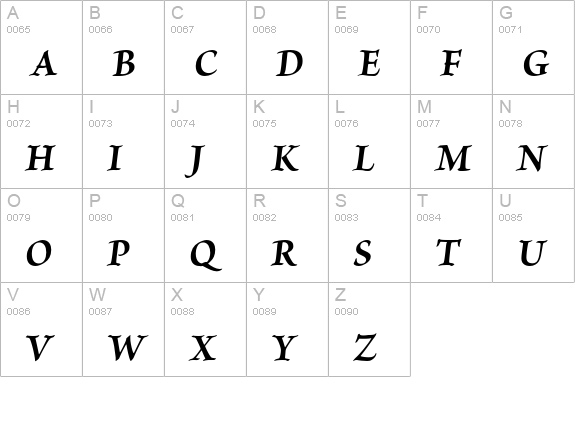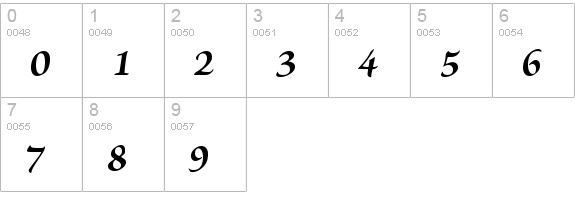
Brioso Pro Bold Italic is a strong, high-contrast, italic variant in the Brioso typeface family \xE2\x80\x94 well suited to headlines, attention-grabbing titles, and strong calls-to-action.
The Brioso Pro Bold Italic font exudes a sense of elegance and sophistication with its bold yet graceful italic design. This versatile typeface is perfect for adding a touch of flair and personality to any project, whether it be for branding, editorial design, or creative projects. What sets Brioso Pro Bold Italic apart is its seamless blend of modernity and classic charm, making it suitable for a wide range of applications. Its flowing curves and sharp angles create a dynamic and eye-catching visual impact that will captivate any audience. The best part? Brioso Pro Bold Italic is available for free download at FontsMarket.com, allowing you to easily access this stunning font and incorporate it into your designs without any hassle. Don't miss out on the opportunity to elevate your projects with the timeless allure of Brioso Pro Bold Italic.